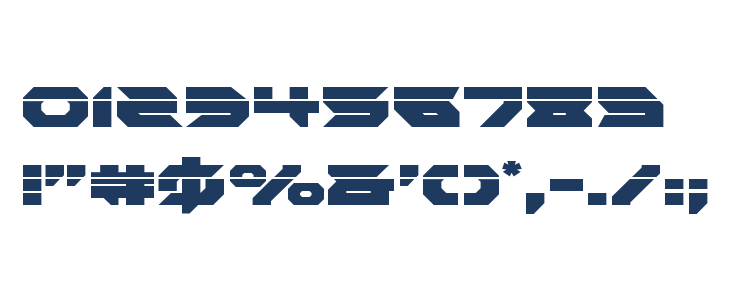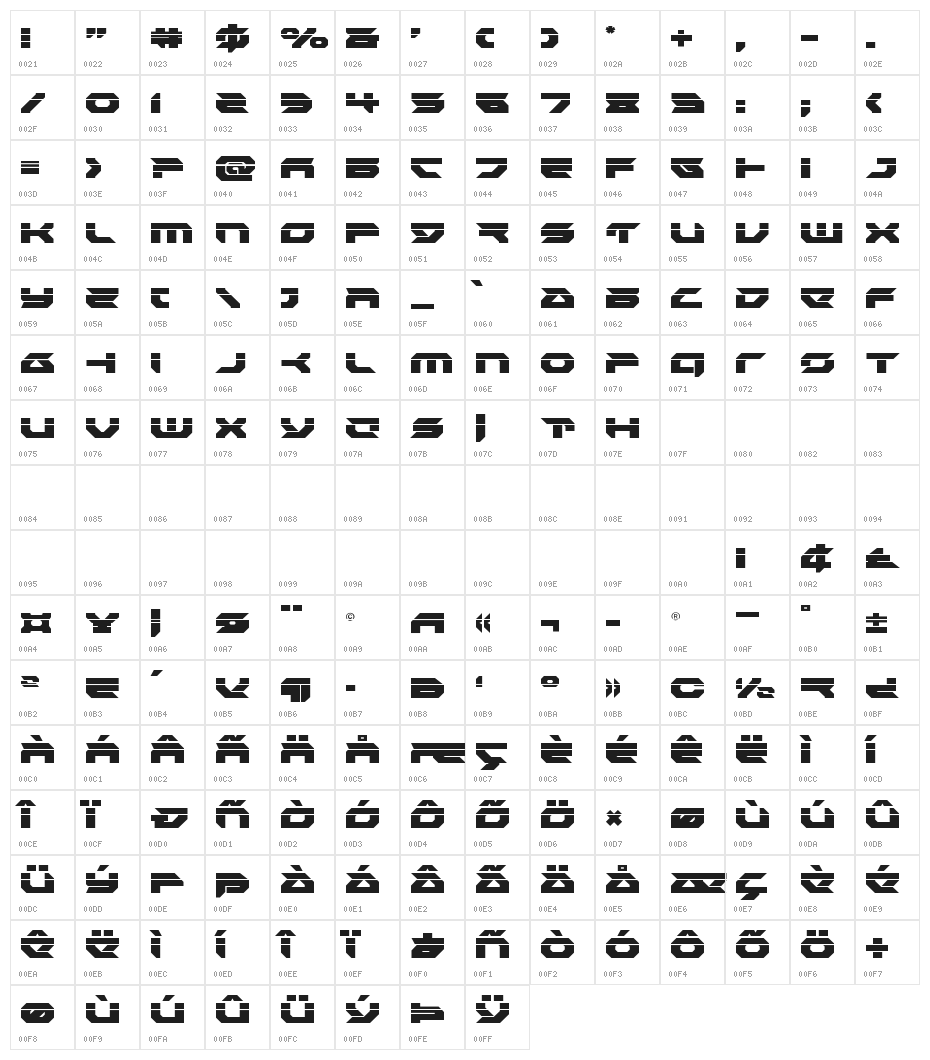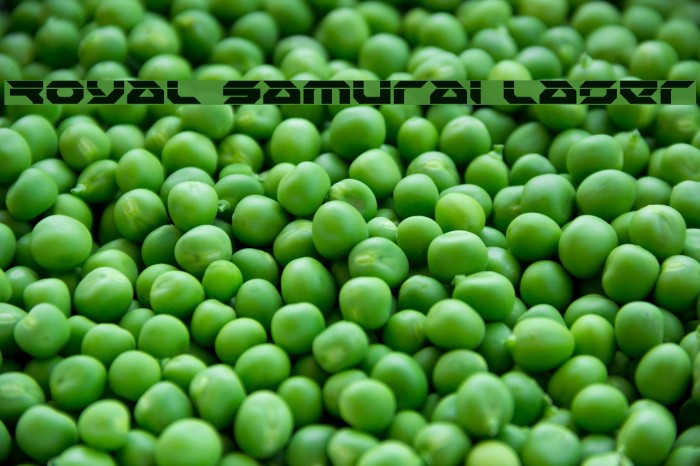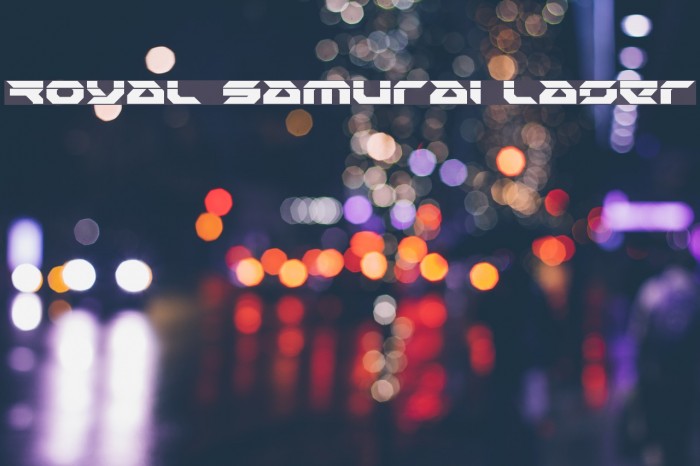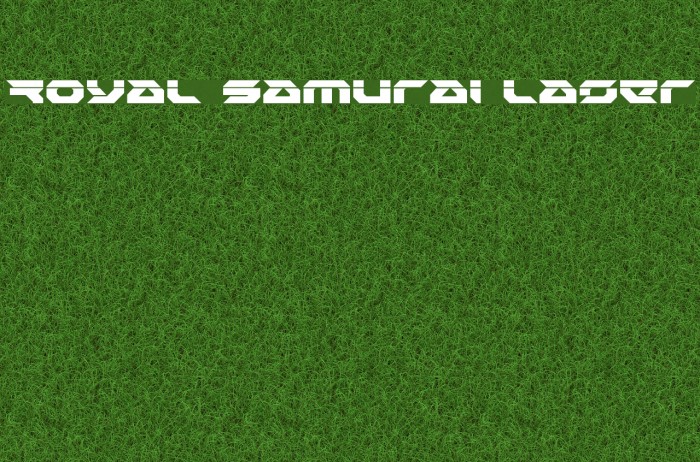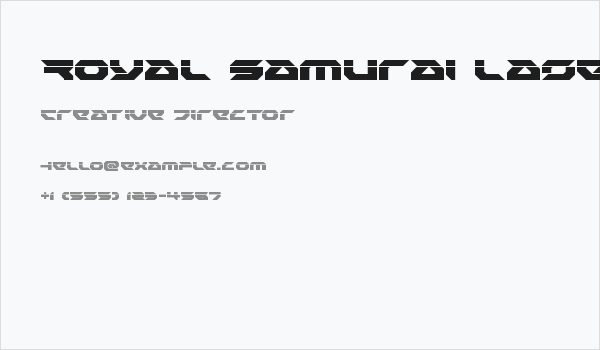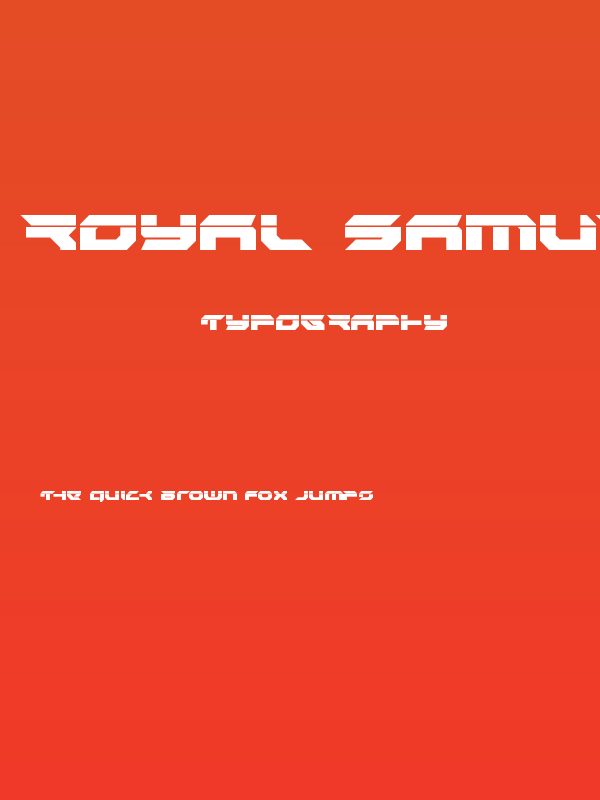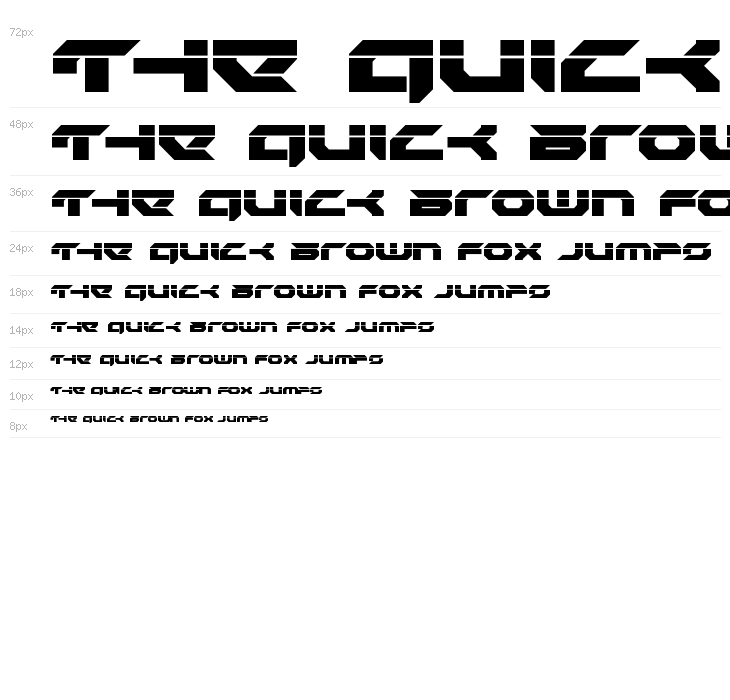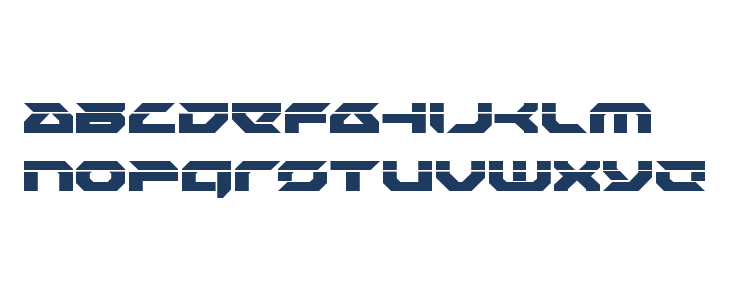
Royal Samurai Laser Font
Royal Samurai Laser Description
This font features a bold, futuristic design with sharp, angular edges and a geometric structure. Each character is crafted with precision, creating a sense of movement and energy. The uppercase and lowercase letters maintain a consistent style, with a unique blend of traditional and modern elements. The numbers and special characters are equally bold, ensuring a cohesive look across all text. The overall appearance is striking and memorable, making it ideal for projects that require a strong visual impact.
| Proposed Projects | Ideal for sci-fi themed projects, video game titles, movie posters, and branding that requires a modern, edgy look. |